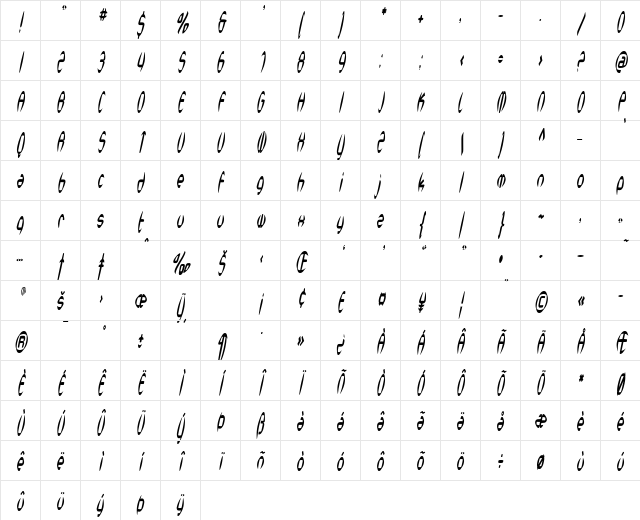
SF Synthonic Pop Condensed Oblique
SF Synthonic Pop Condensed Family
Design Context for SF Synthonic Pop Condensed
SF Synthonic Pop Condensed is a composed and adaptable typeface that performs quietly and consistently across a wide range of design contexts. The slanted form adds forward momentum and visual energy. Its narrow stance lets it pack a punch even in space-constrained designs.